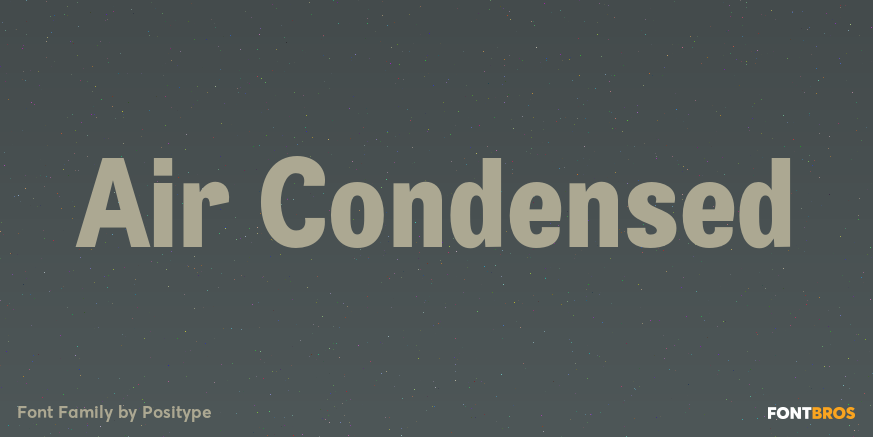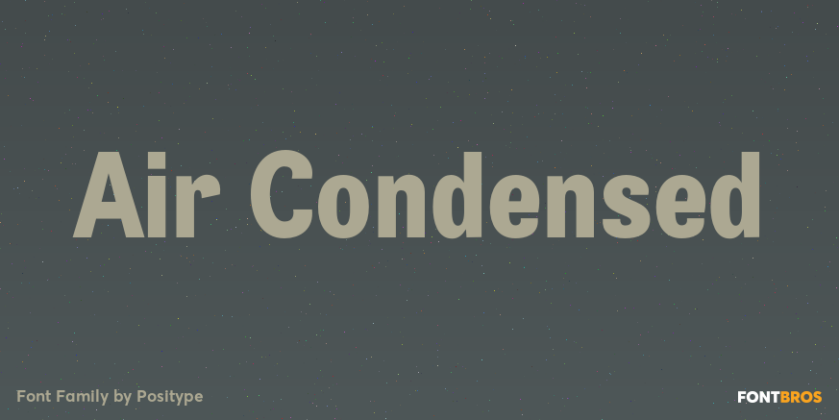
Air Condensed
About Air Condensed
In B-movie awesomeness, Air began as Grotesk vs. Grotesque. I was trying to unify the prevailing traits of German and English Grotes(que/k)s in order to make something different but familiar. I am NOT trying to reinvent Helvetica (snore), so get that…